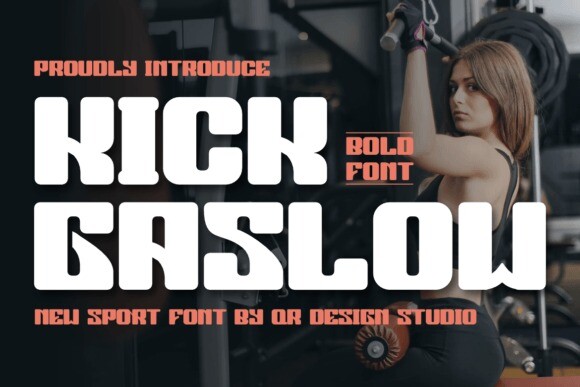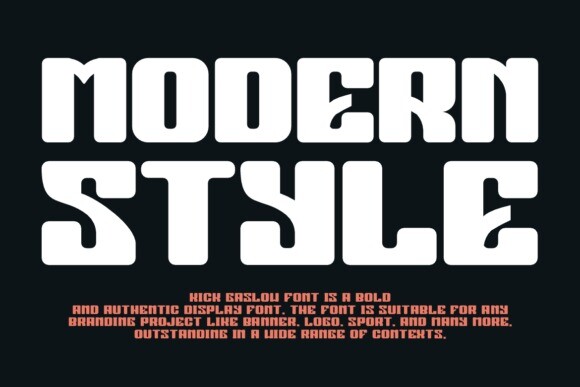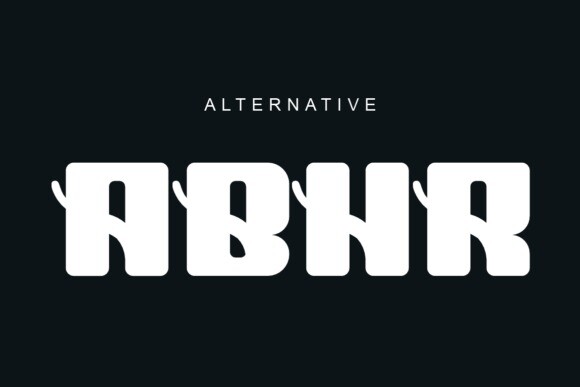
Kick Gaslow Font
Kick Gaslow Font is a bold and authentic display font.
The font is suitable for any branding project like logos, sports, and many more.
Outstanding in a wide range of contexts.